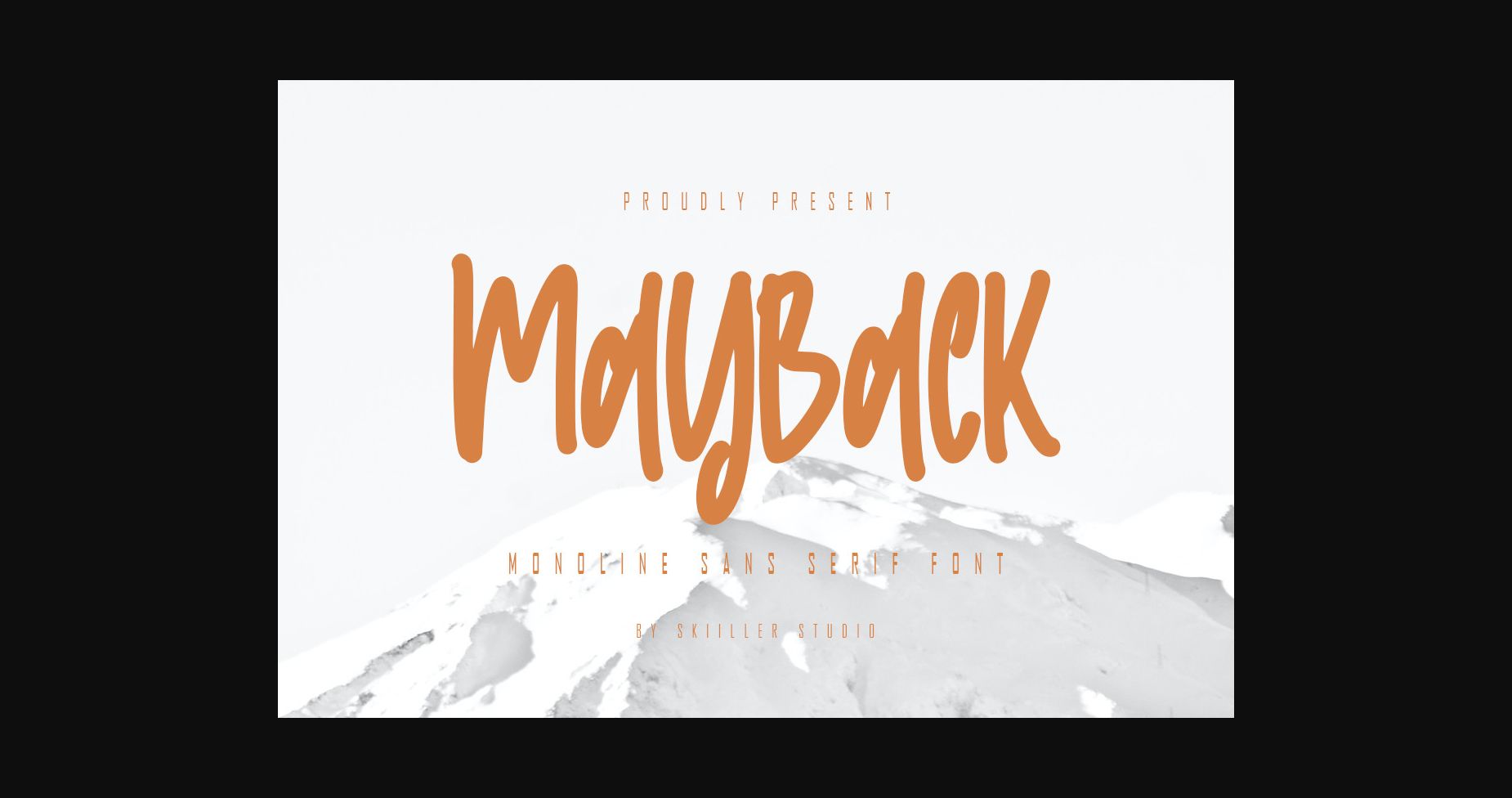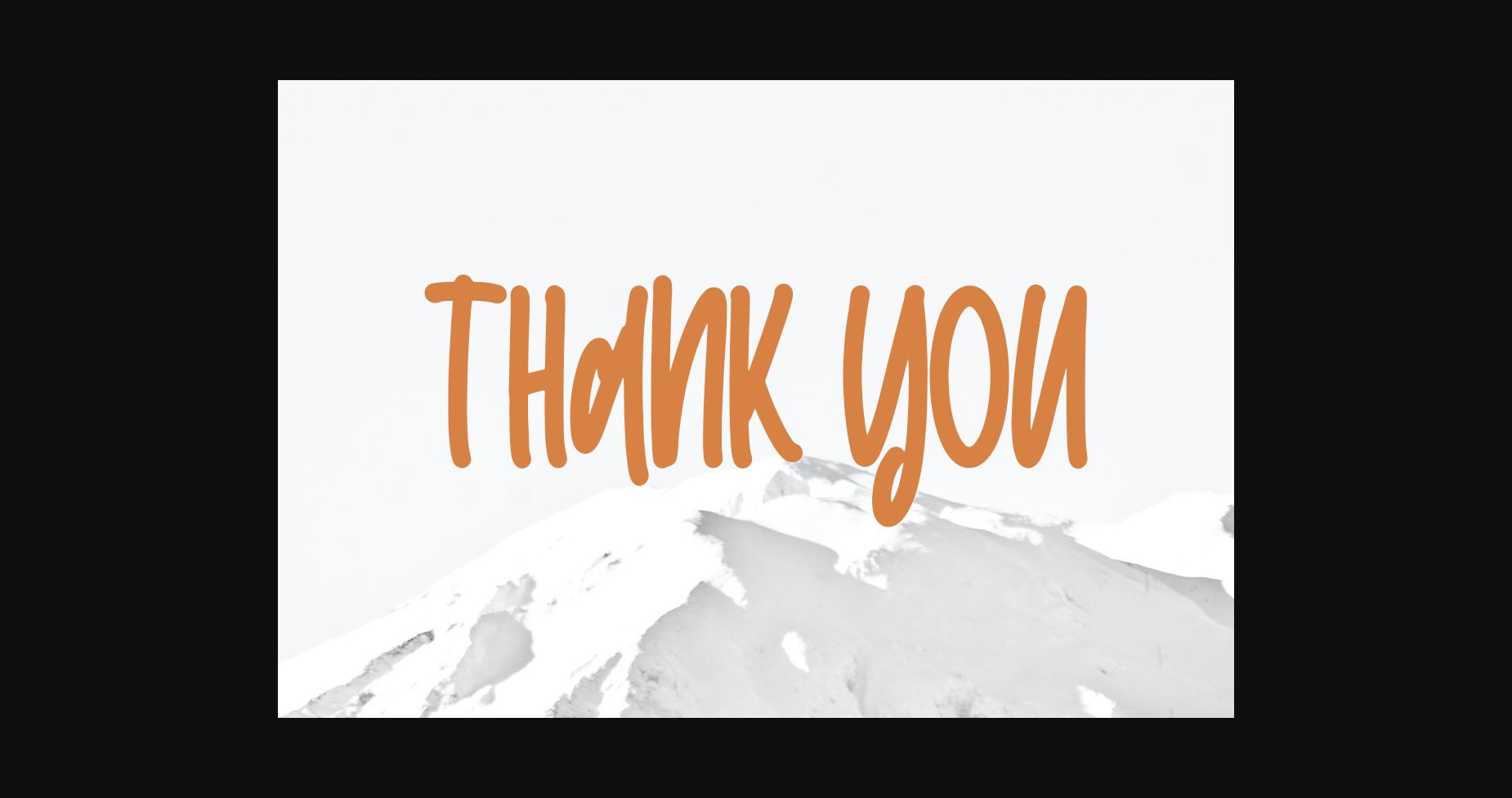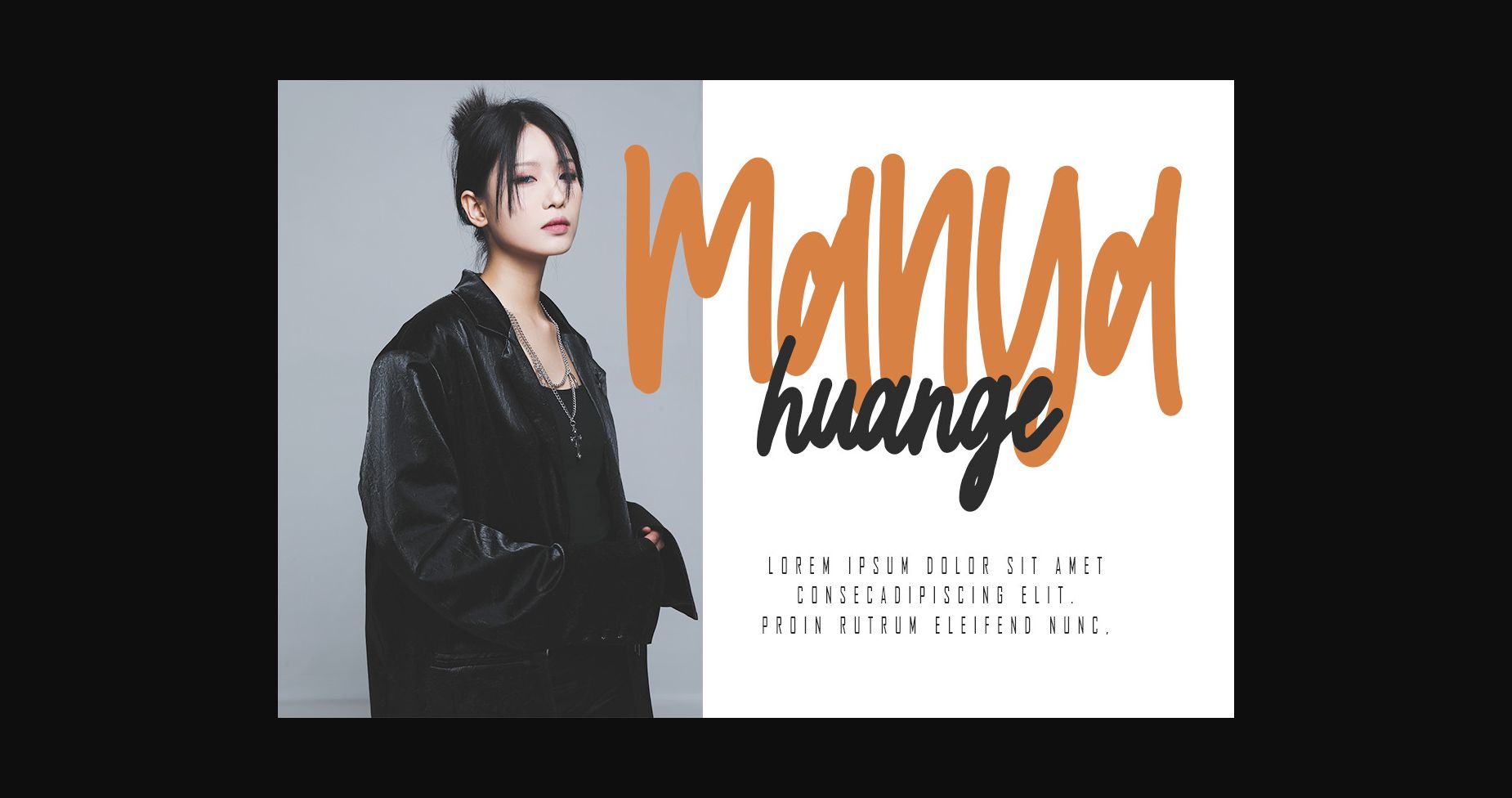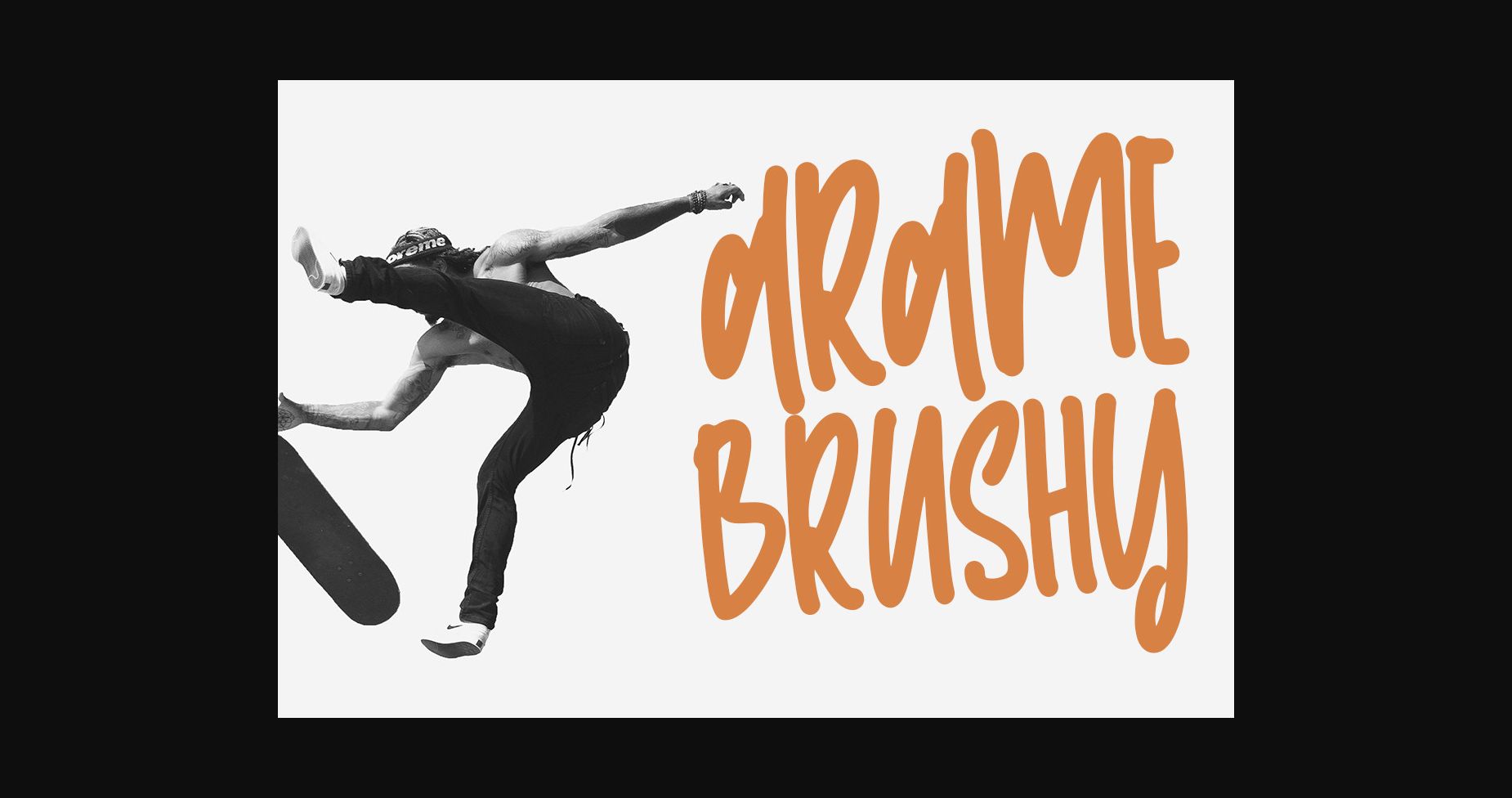
About Mayback Font
Mayback is an elegant and sophisticated font that embodies the latest design trends. This font is both legible and versatile and perfect for creating contemporary and minimalist designs. Elevate your projects to new heights with this must-have font.